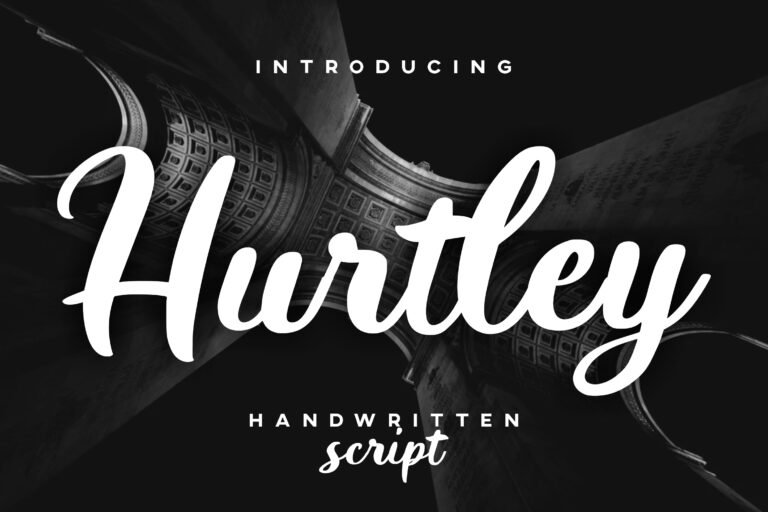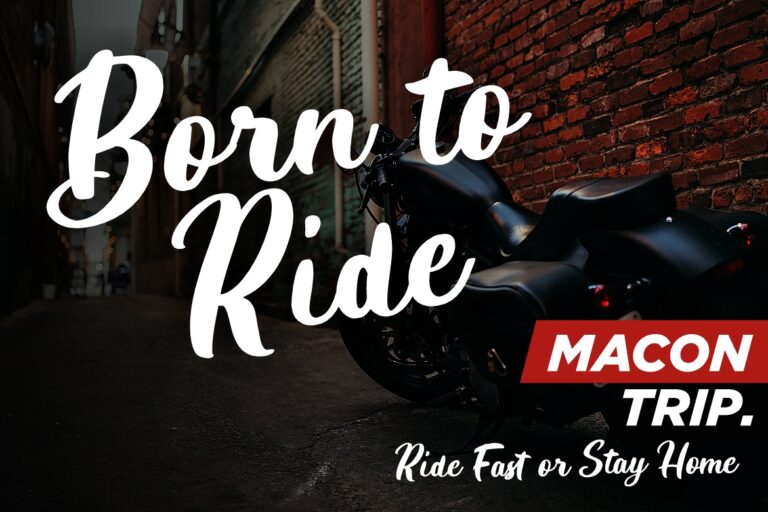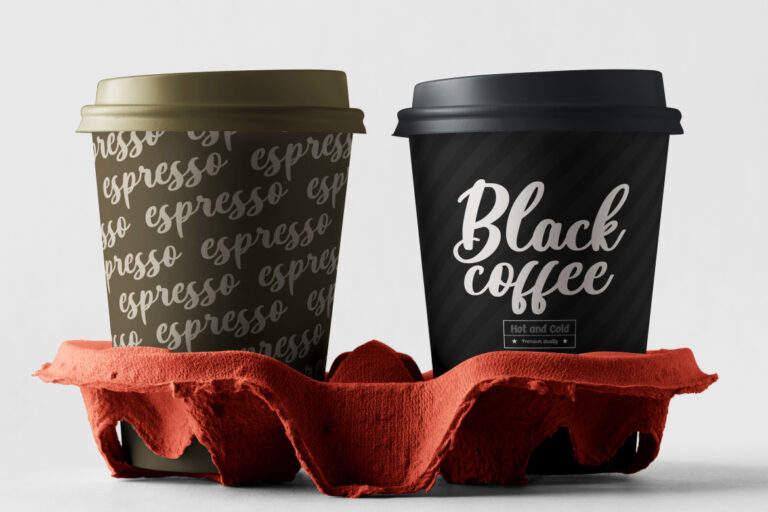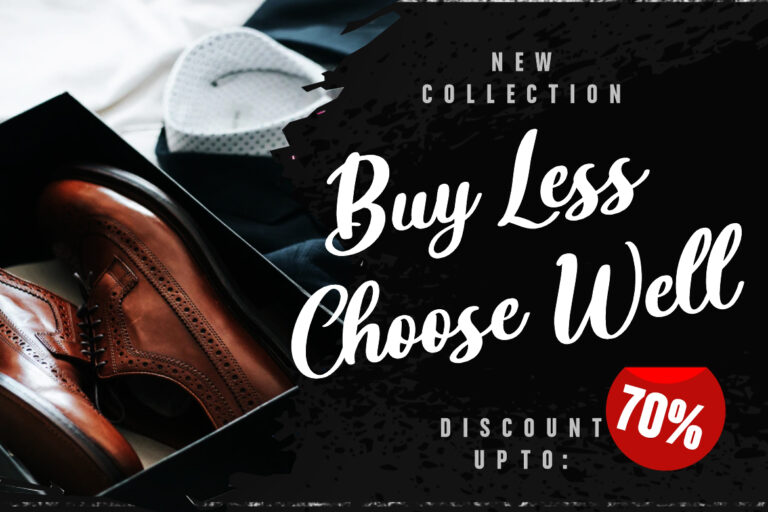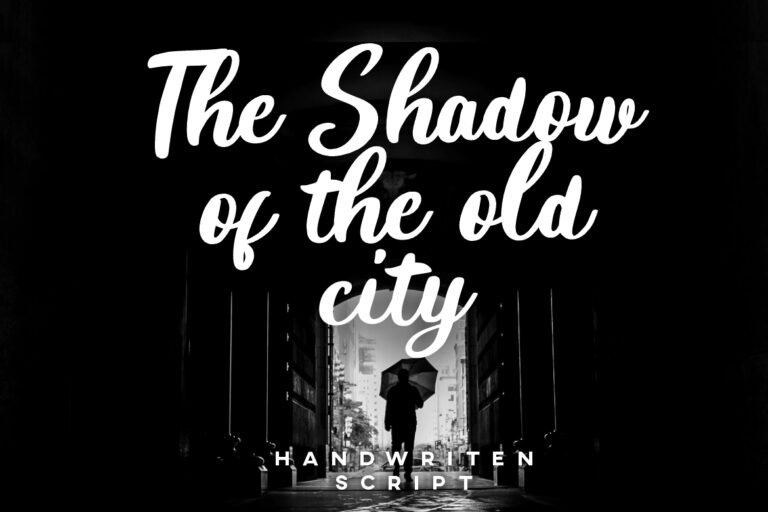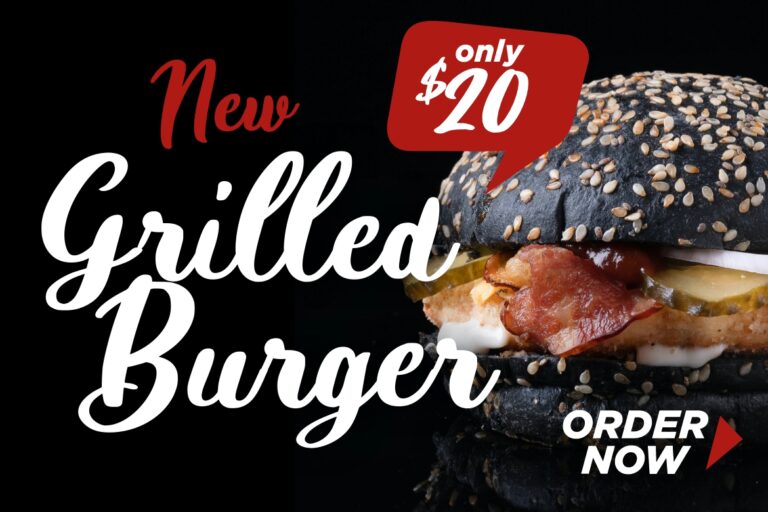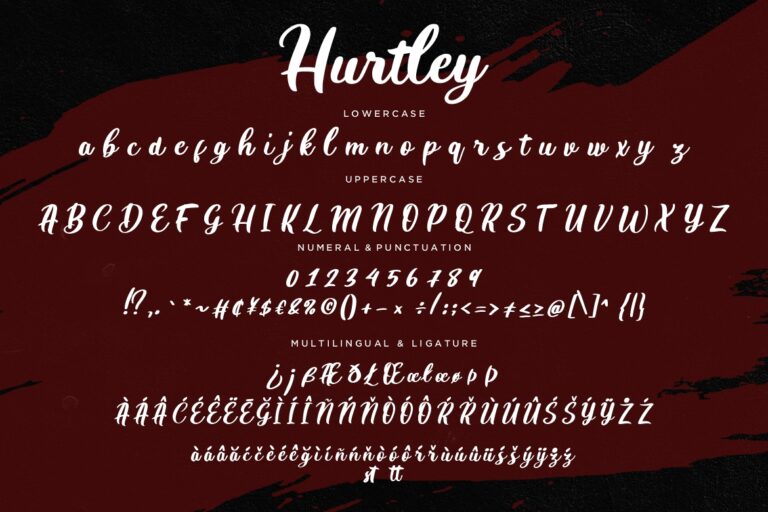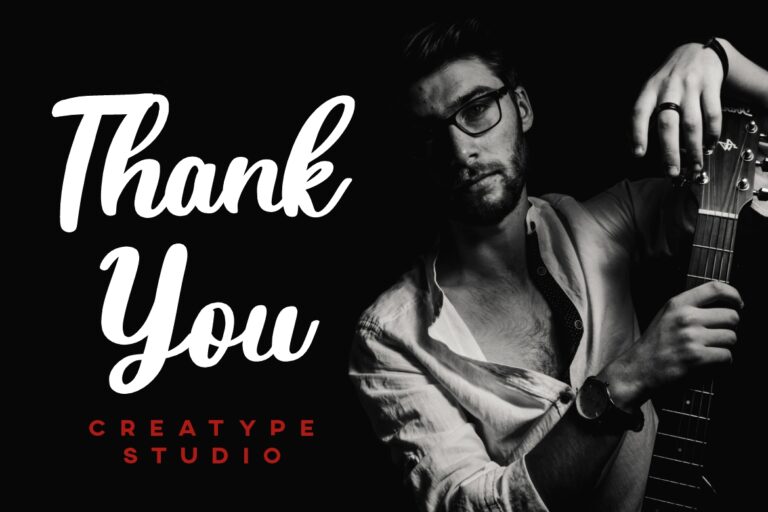
Hurtley Handwritten Script
Hurtley is handwritten script font looks calligraphy style and elegant.
Hurtley is perfect for branding projects, logo, wedding designs, social media posts, advertisements, product packaging, product designs, label, photography, watermark, invitation, stationery and any projects that need handwriting taste.
- Fonts include multilingual support for; ä ö ü Ä Ö Ü ß ¿ ¡